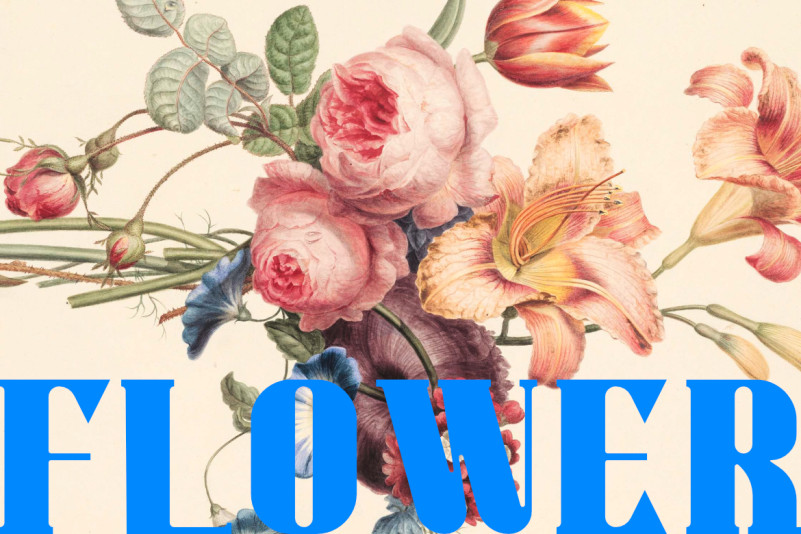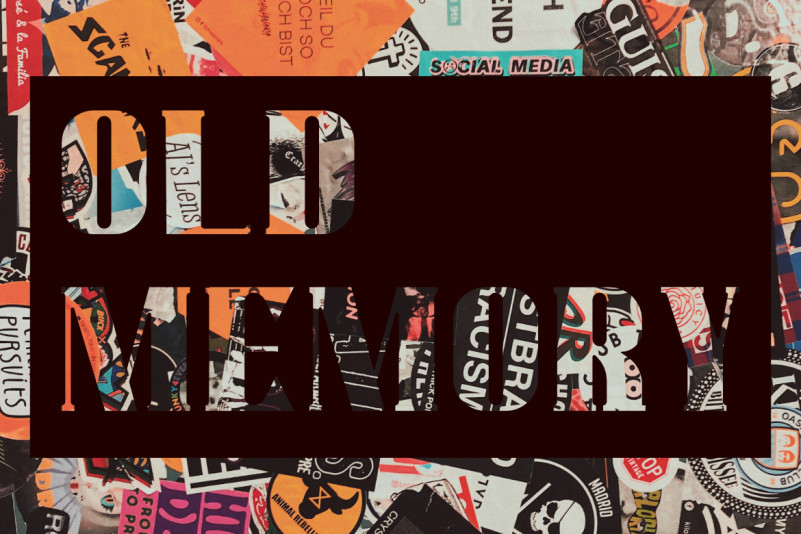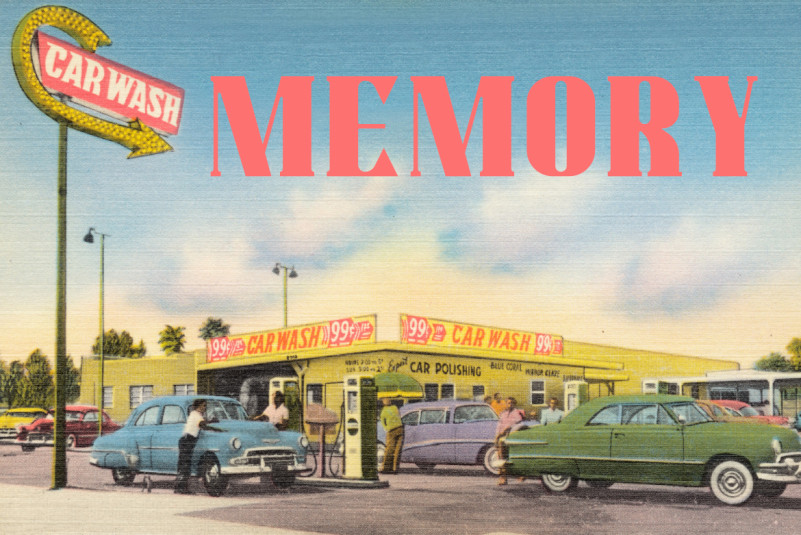
Warriot Pro Font
Warriot Pro Serif Font, This font is perfect for stickers, retro projects, craft projects, shirts, svg designs, procreate designs, branding, blogs, logos, invitations and more!
Warriot is a bold and retro styled serif font